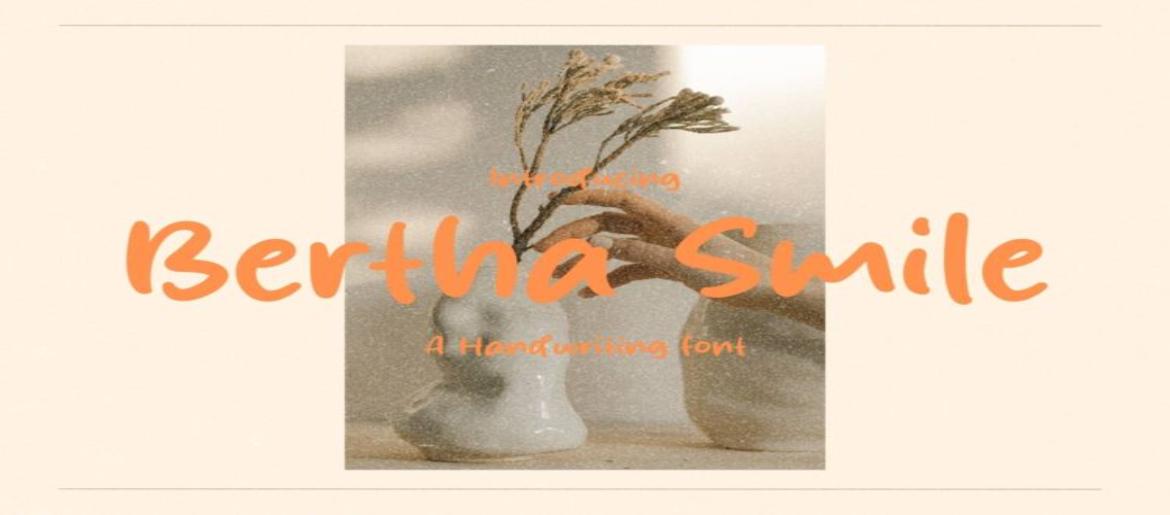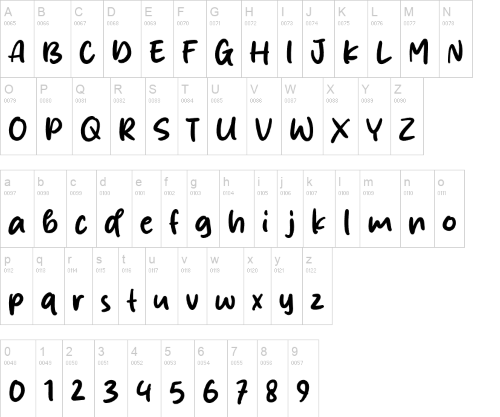
Bertha Smile Font
Bertha Smile Font is a cheerful, playful display typeface with rounded letterforms and a friendly personality. Its fun, bouncy style makes it perfect for children’s designs, logos, packaging, posters, and creative branding. Bertha Smile brings joy, warmth, and a lighthearted charm to any visual project.
Font Name: Bertha Smile
Designer: Origin Type
Style: Script > Handwritten